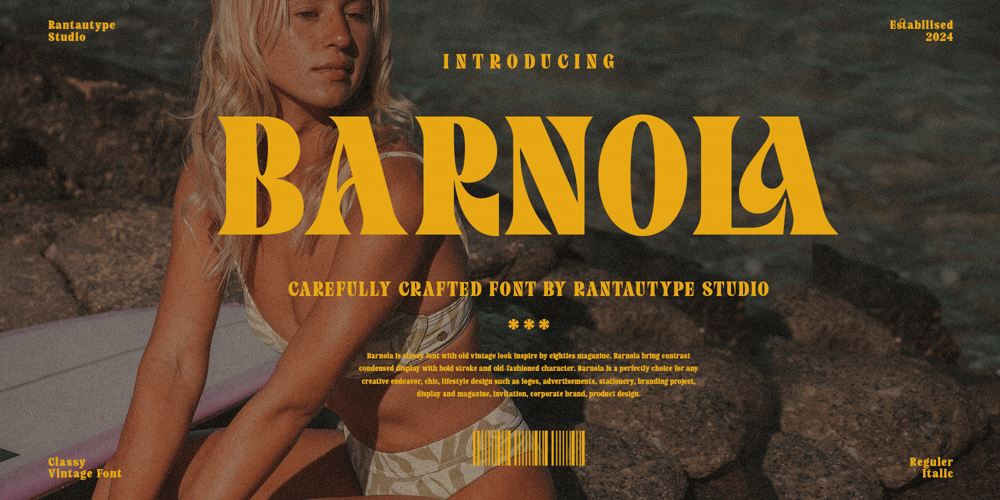
Barnola Font Family was designed by Yudi Pratama Chandra and published by RantauType. Barnola contains 2 styles and family package options. Barnola is classy font with old vintage look inspire by eighties magazine. Barnola bring contrast condensed display with bold stroke and old-fashioned character it make your design project nostalgic sanse.Barnola is a perfectly choice for any creative endeavor, chic, lifestyle design such as logos, advertisements, stationery, branding project, display and magazine, invitation, corporate brand, product design, label, business project and many other project with vintage nostalgic touch.What you have: Standart Glyphs Numberial and Functional Ligature and alternate Works on PC & Mac Simple installations Accessible in Adobe Illustrator, Adobe Photoshop, Adobe InDesign, even work on Microsoft Word. Fonts include multilingual support for: Afrikaans, Albanian, Basque, Bemba, Bena, Breton, Catalan, Chiga, Cornish, Danish, Dutch, English, Estonian, Filipino, Finnish, French, Galician, German, Icelandic, Indonesian, Irish, Italian, Kinyarwanda, Luxembourgish, North, Norwegian, Portuguese, Romansh, Rombo, Rundi, Scottish, Gaelic, Sena, Shambala, Shona, Soga, Somali, Spanish, Swahili, Swedish, Swiss, German.Thank you for your purchase!Hope you enjoy with our font!